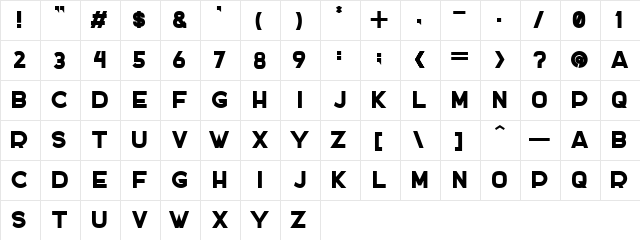
DOCKER ONE
ONE · Slava "Designvamp" Krivonosov Slava "Designvamp" Krivonosov ·
Design Context for DOCKER Typeface
DOCKER takes a measured approach to typography — its balanced proportions and neutral character make it a reliable workhorse for both digital and print work.